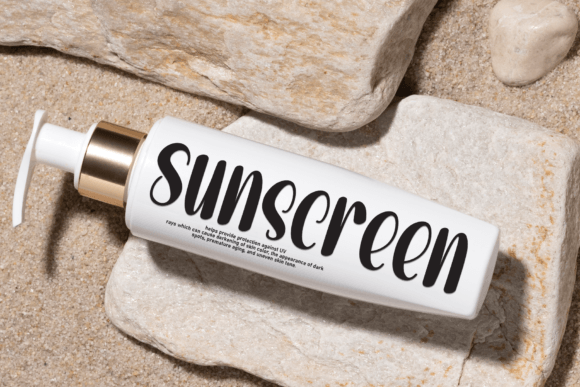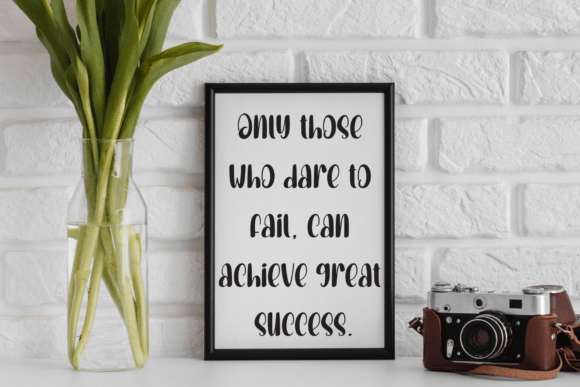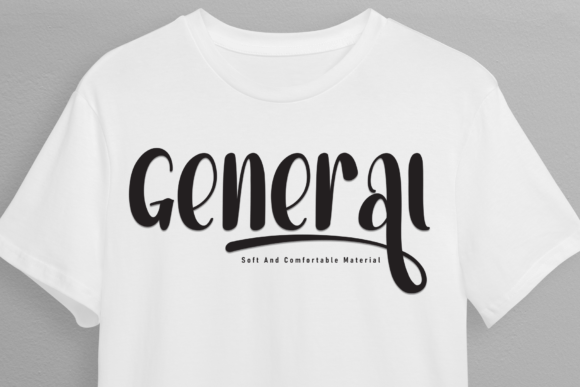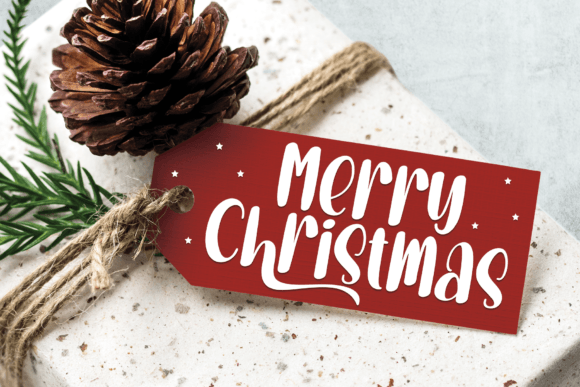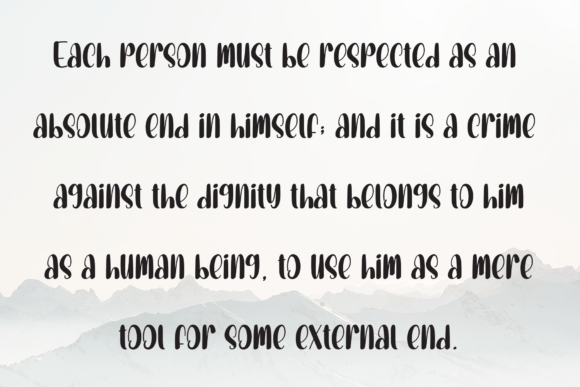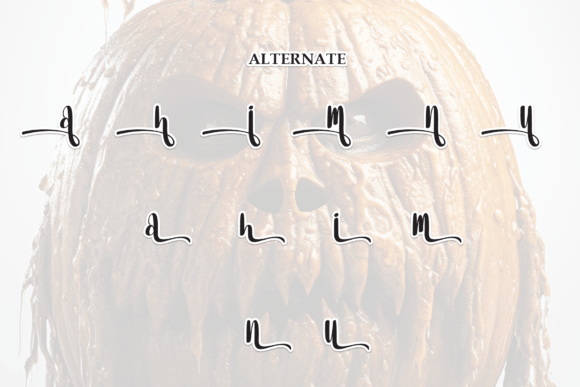
Introduction to Pumpkin Giant Font
Pumpkin Giant is a sweet and friendly handwritten display font.
Cute and fun, this font is ideal for writing wedding invitations, cards, or any other design that might need a fun touch .
Pumpkin Giant Font offers exceptional quality and versatility, making it a valuable addition to your design toolkit. Whether you’re creating for personal projects or commercial use, Pumpkin Giant Font delivers professional results.